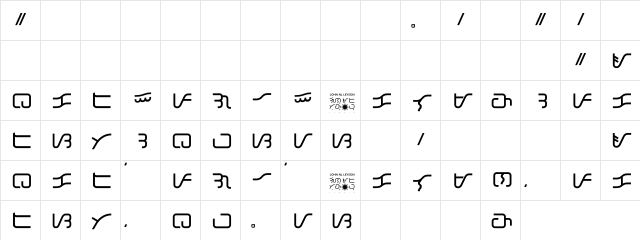
Tawbid Pilipinas Regular
Regular · Baybayin Buhayin John NL Leyson ·
DesignerJohn NL Leyson
Design Context for Tawbid Pilipinas Typeface
Tawbid Pilipinas offers clean, dependable letterforms without strong stylistic allegiance, making it a practical choice for designers who need flexibility.